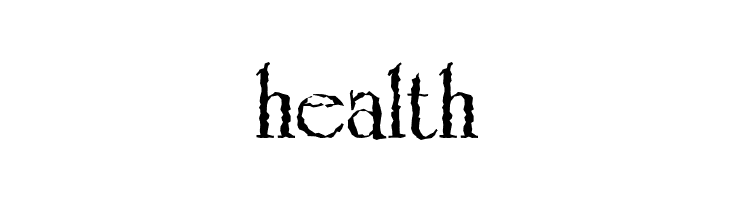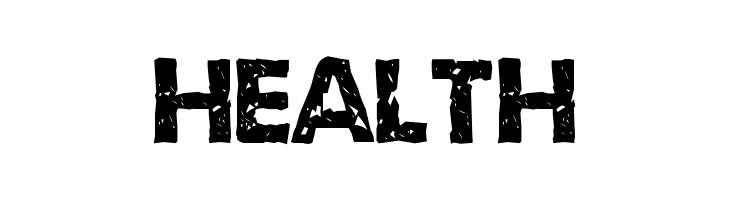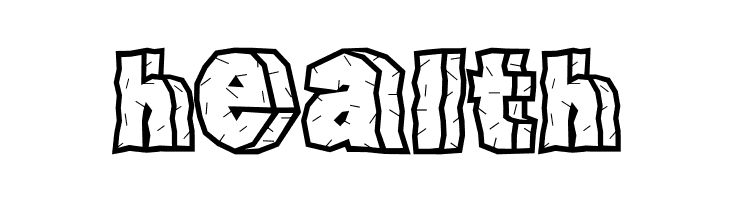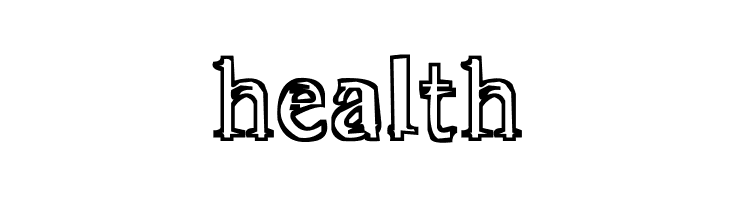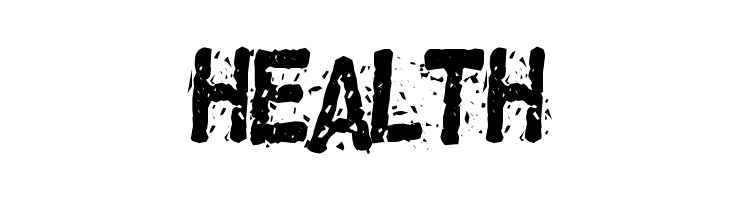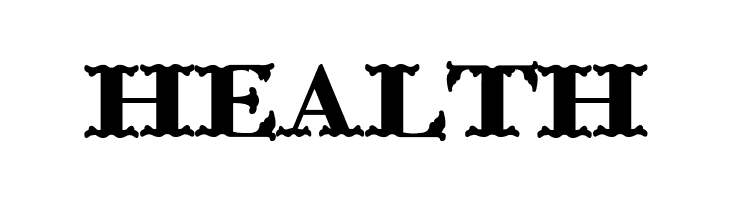
A textured, playful font with a frothy, liquid-like appearance.
A distressed, hand-drawn font with jagged edges and a rough texture.
A bold, textured font with a rugged, rock-like appearance.
A bold, decorative font with a distressed, vintage texture.